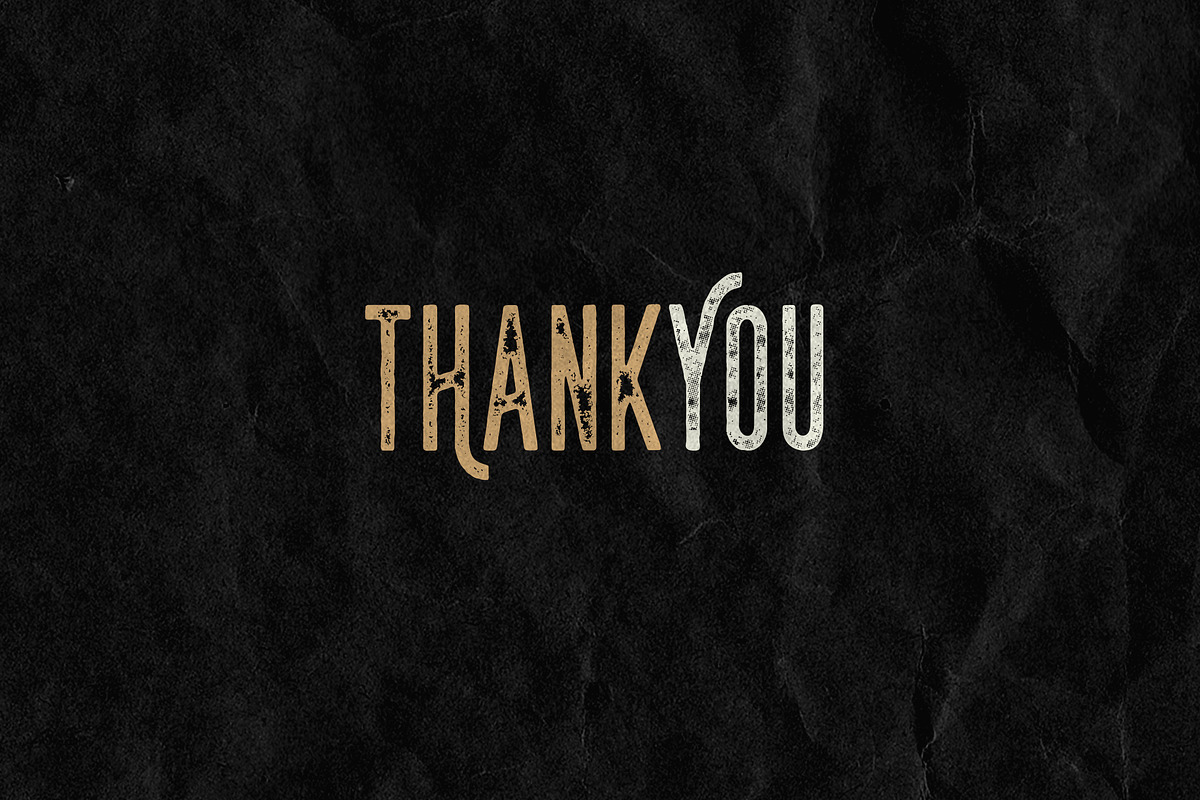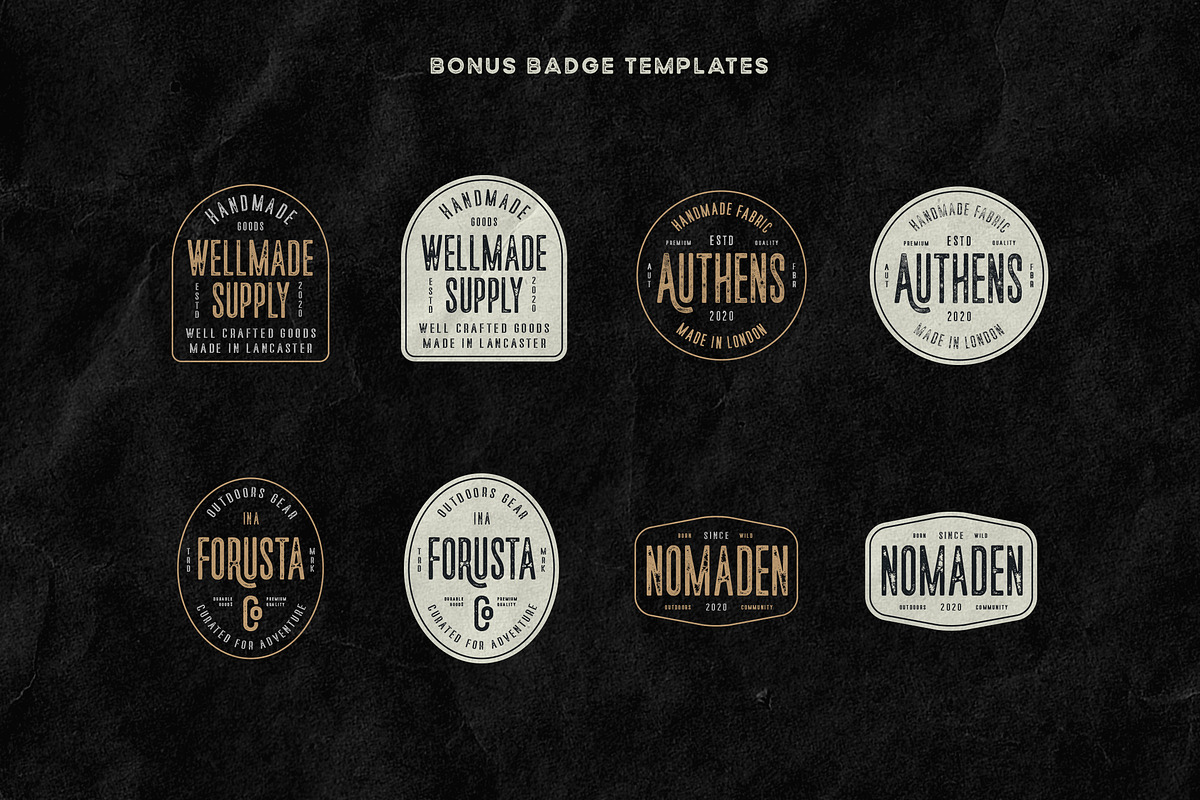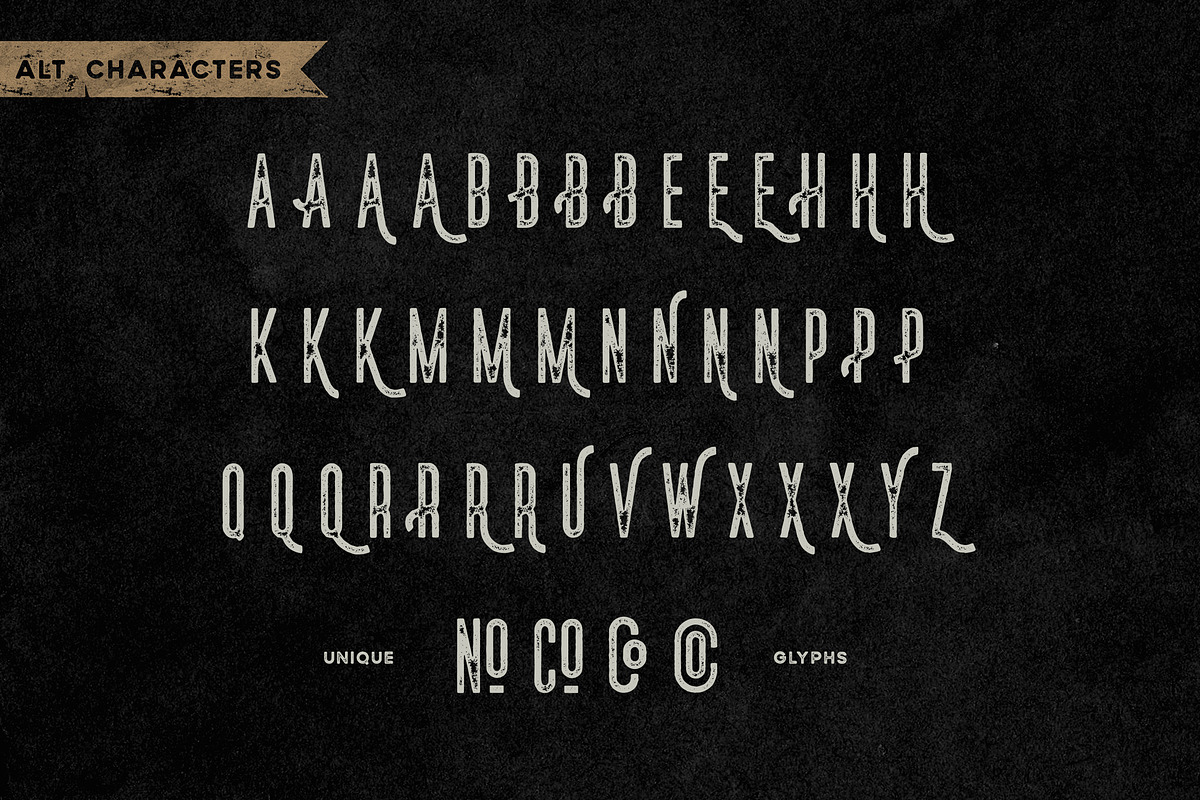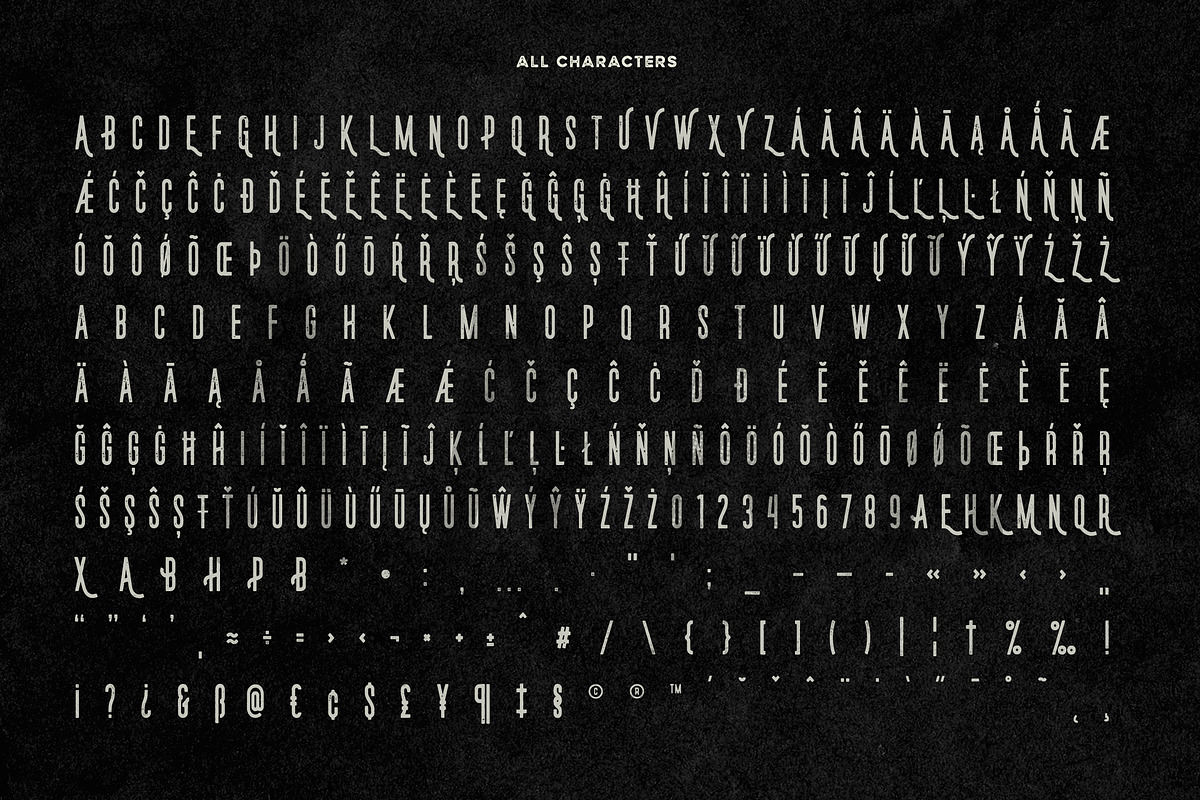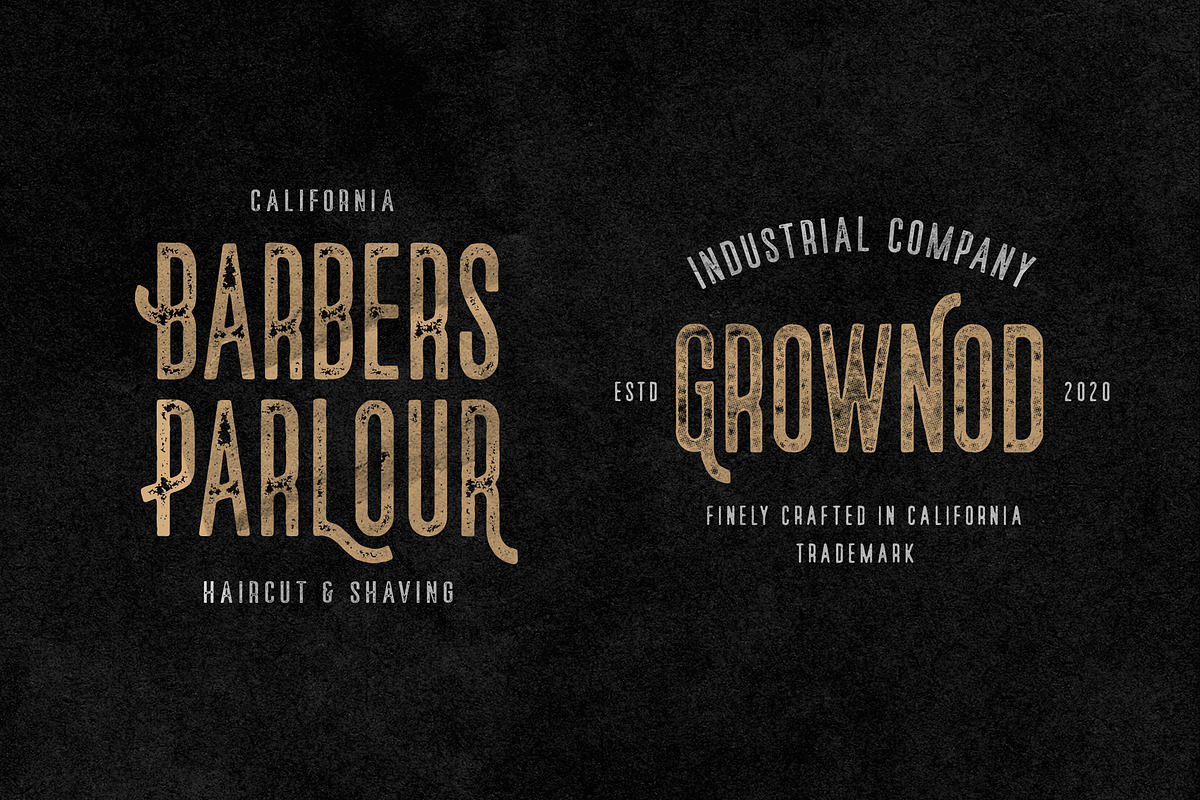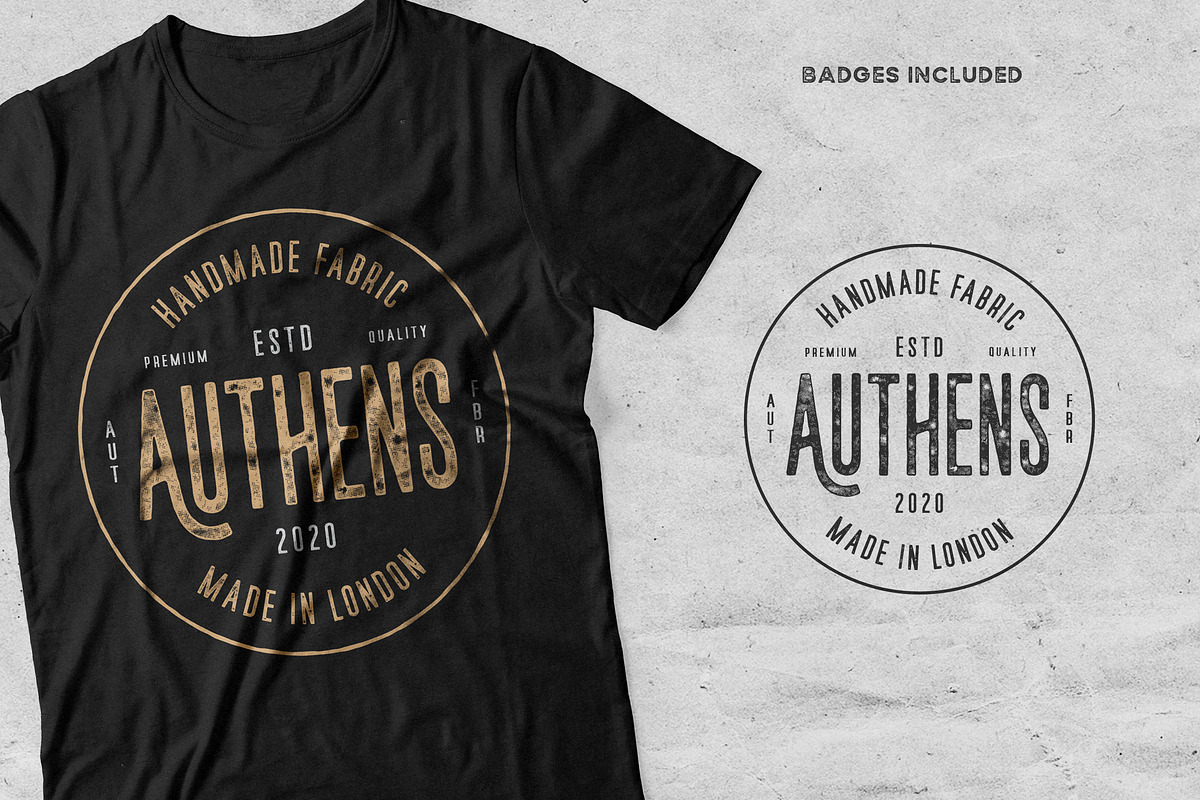
Norsten Vintage Condensed + Extras
Introducing
Norsten Vintage Condensed Sans Typeface with 4 Font Styles and Bonus 8 Vintage Badge/Logo Templates
Norsten is a handmade Vintage Condensed Typeface. Norsten is another essentials for armored your vintage arsenal. The font have old industrial characteristic and uses inked style with detailed vintage texture, to gives a feel and look of Industrial Theme, Printed look, Aged, Vintage, Classic, Old. The processing of the the texture is well crafted and added carefully in each character.
Norsten come with plenty styles , it’s includes 4 font Styles: Clean Rough, Rust, Halftone and Stamp. Also it is armored with Alternates Characters, so that you have many options for your creativity, it also includes Bonus 8 Vintage Badge/Logo Templates in Adobe Illustrator and EPS format .
The font is perfect for people looking for vintage aesthetics design with plenty variations of texture, also it works for modern designs.
Suitable for most graphic design such as typography designs, covers, labels, badges, ,quotes, apparel designs, logos, posters and more.
- All Uppercase Character
- Alternates Character
- Punctuation & Symbol
- International Language
- Open Type Features